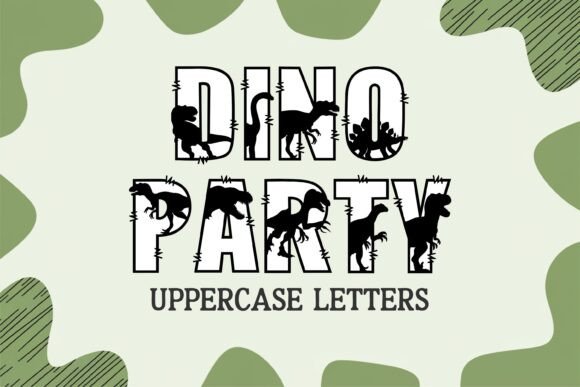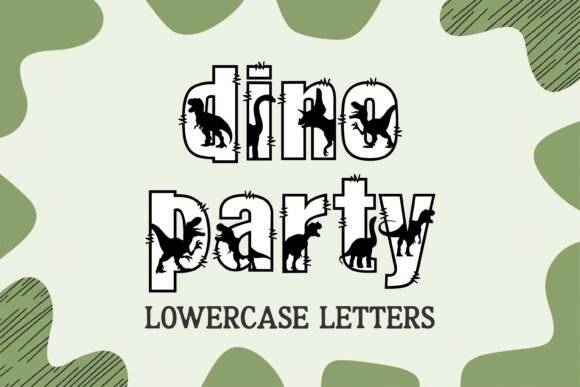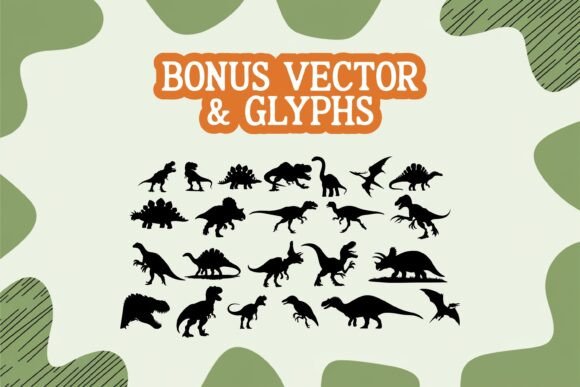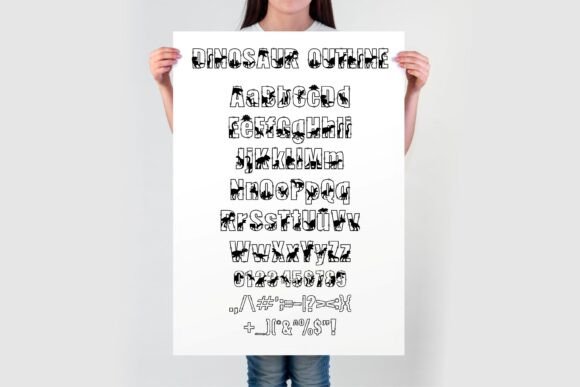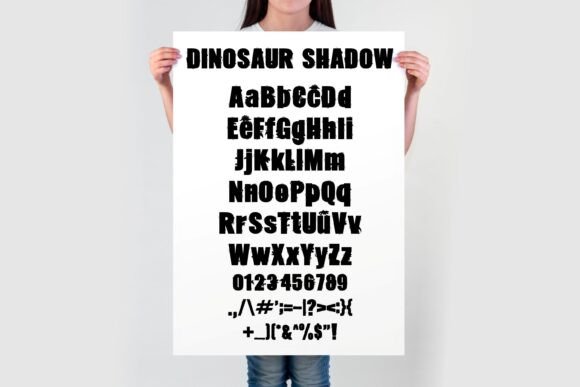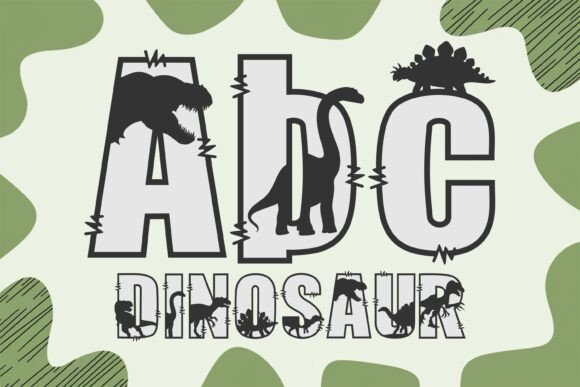
Unleash Your Creativity with the Ab Dinosaur Duo Font
Have you ever been in the middle of a design project, and suddenly, you’re stuck because you just can’t find the right font? I recall a recent experience where I was working on a children’s book about dinosaurs, and my usual go-to fonts just weren’t cutting it. The design needed something bold, playful, and prehistoric. That’s when I stumbled upon the Ab Dinosaur Duo Font, and let me tell you, it’s been a game-changer! 🦖
A Personal Review of the Ab Dinosaur Duo Font
- ✅ The font features adorable dinosaur silhouettes and barbed wire details, adding a unique touch to any design.
- ✅ It’s incredibly versatile, perfect for projects like kids’ birthday invitations, nursery prints, adventure books, t-shirts, and DIY crafts.
- ✅ The full alphabet (A-Z), numbers, symbols, and bonus dinosaur silhouettes and glyphs are included, giving you plenty of creative options.
While the Ab Dinosaur Duo Font is amazing, there are a few minor things to keep in mind:
- 🤔 Some of the glyphs and bonus silhouettes might require a bit of experimentation to get just right, especially if you’re new to using OpenType features or glyphs.
The Inspiration Behind the Ab Dinosaur Duo Font
The Ab Dinosaur Duo Font was created with the intention of bringing a touch of prehistoric fun into the world of design. The designer, inspired by the fascinating world of dinosaurs and the creativity of crafters and designers, aimed to create a font that was both playful and versatile. The result is a font that’s perfect for anyone looking to add a bit of dinosaur-themed whimsy to their projects.